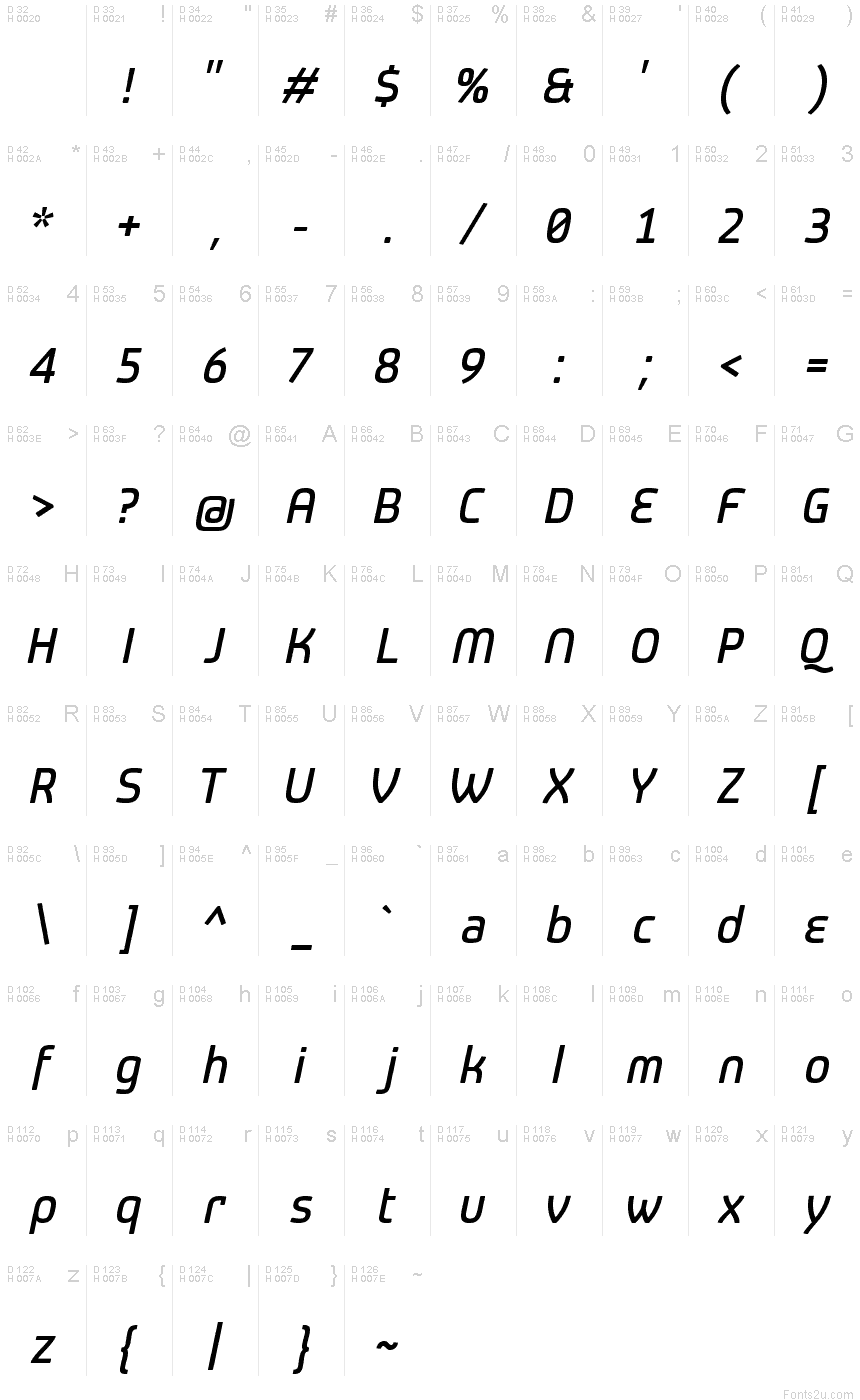
PatronAlt Medium Italic by Matej Hlavacek is a free italic sans serif with a broad, forward-leaning silhouette. Its rounded curves meet clipped, angled endings, giving the lettering a brisk, deliberately cut shape. The sturdy strokes show modest variation rather than strict geometric uniformity.
Editorial covers are a convincing setting for its emphatic slant and clean construction. It also suits sports branding and event posters, where the tilted forms suggest speed without decorative effects. Product packaging and digital campaign graphics can use the same direct lettering to signal contemporary performance.